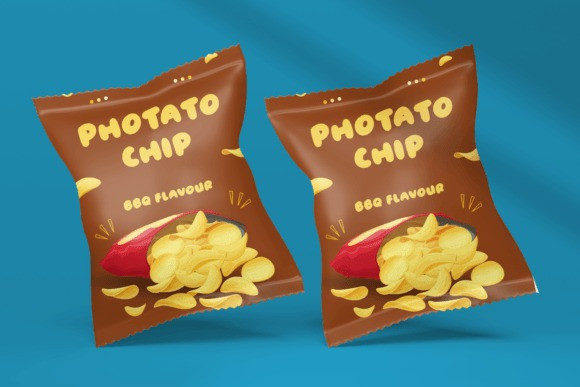
Minions Font
Minions Font a fun and whimsical typeface designed to bring a touch of playful charm to any project. Inspired by the lovable characters of animated adventures, this font features hand-drawn, quirky letterforms that are perfect for children’s books, playful branding, party invitations, and educational materials. With its engaging and unique style, Minions Display Handwritten Kids Font captures the spirit of joy and creativity, making it an ideal choice for designs that need to stand out and delight young audiences.